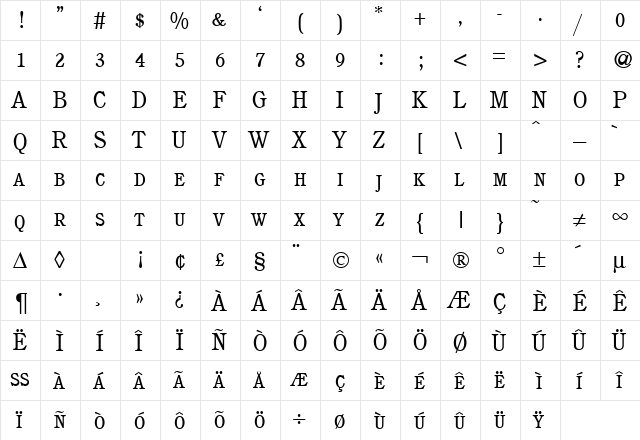
CushingNovaSmc Regular Font Preview
CushingNovaSmc Regular
Design Context for CushingNovaSmc Typeface
CushingNovaSmc is a composed and adaptable typeface that performs quietly and consistently across a wide range of design contexts.